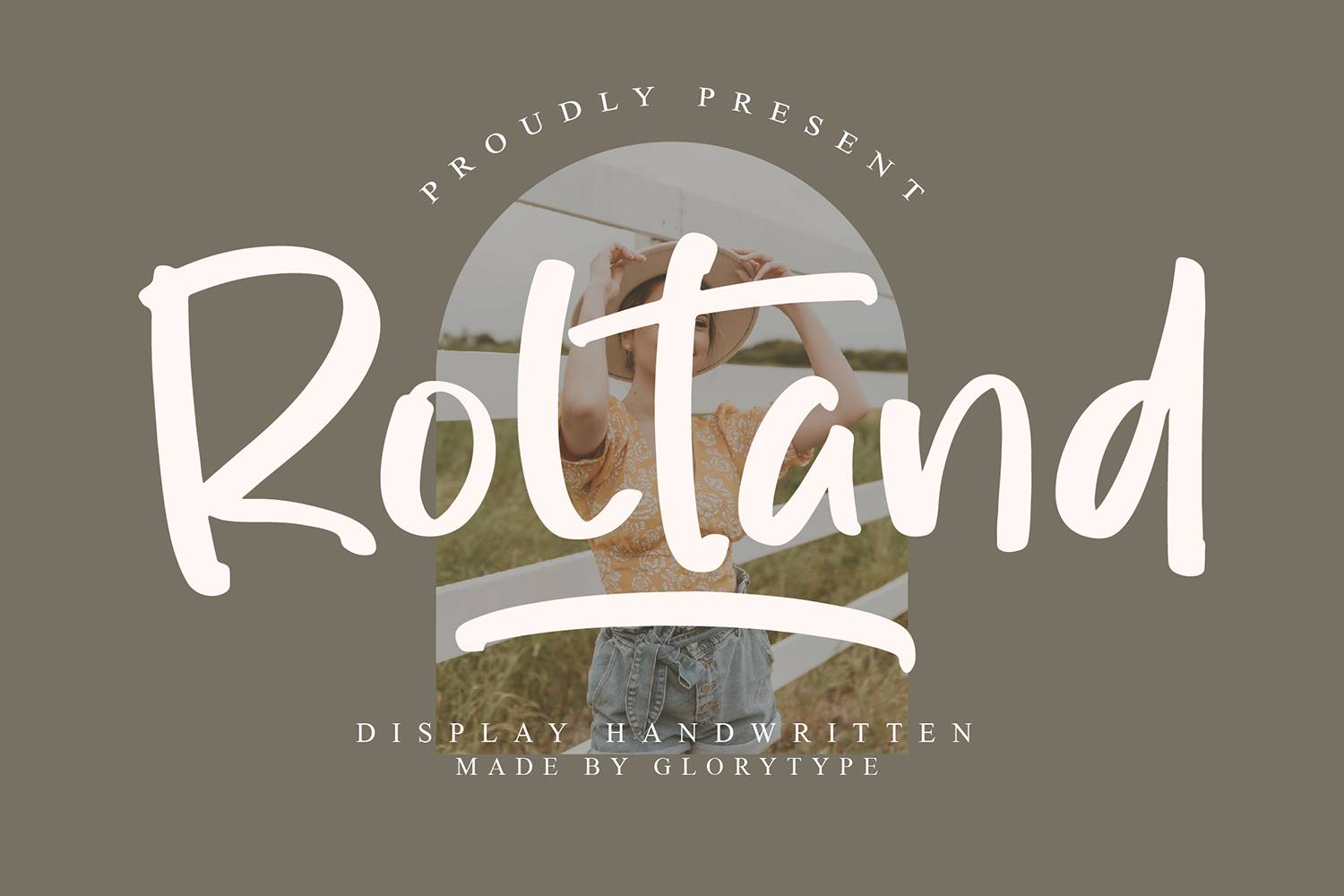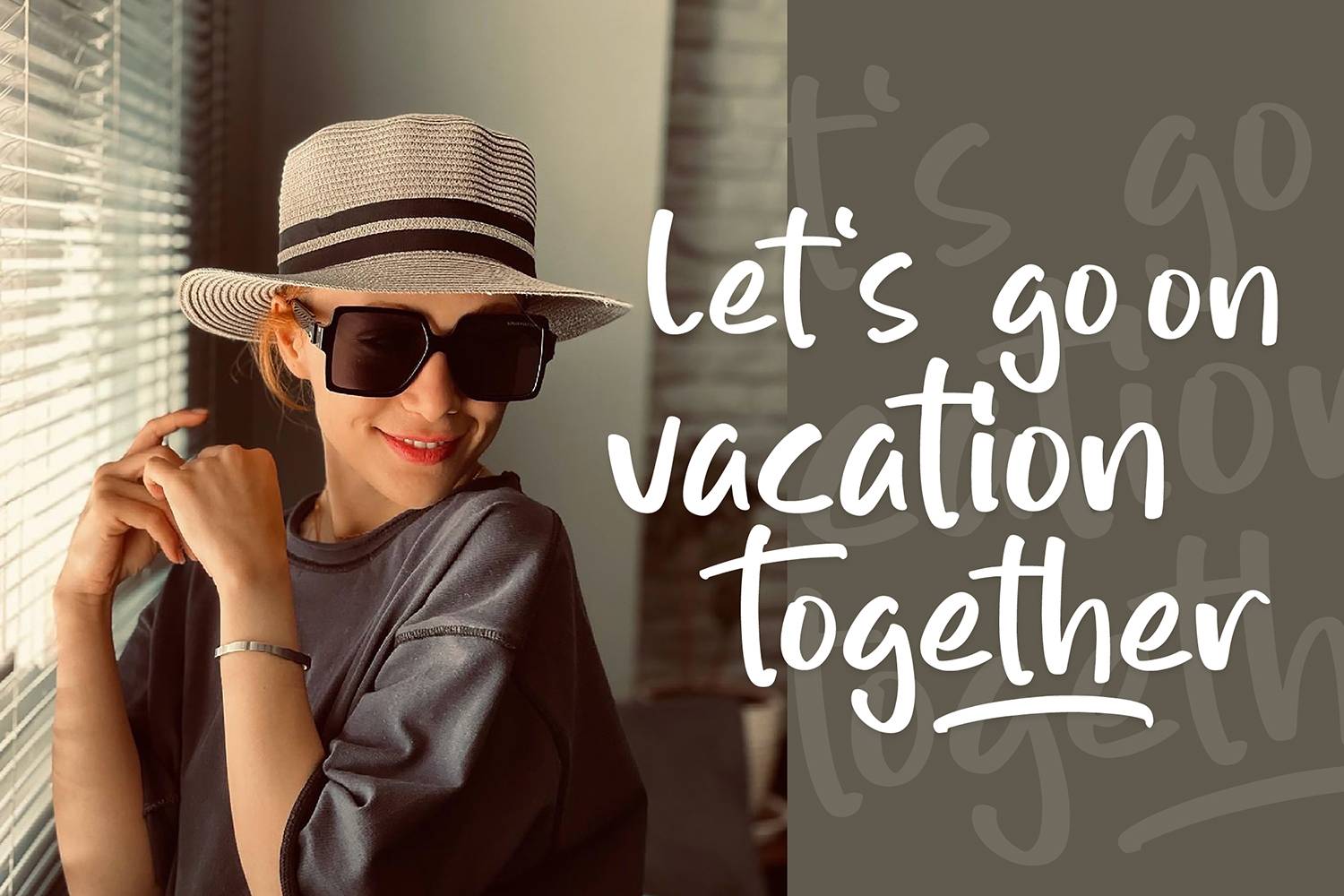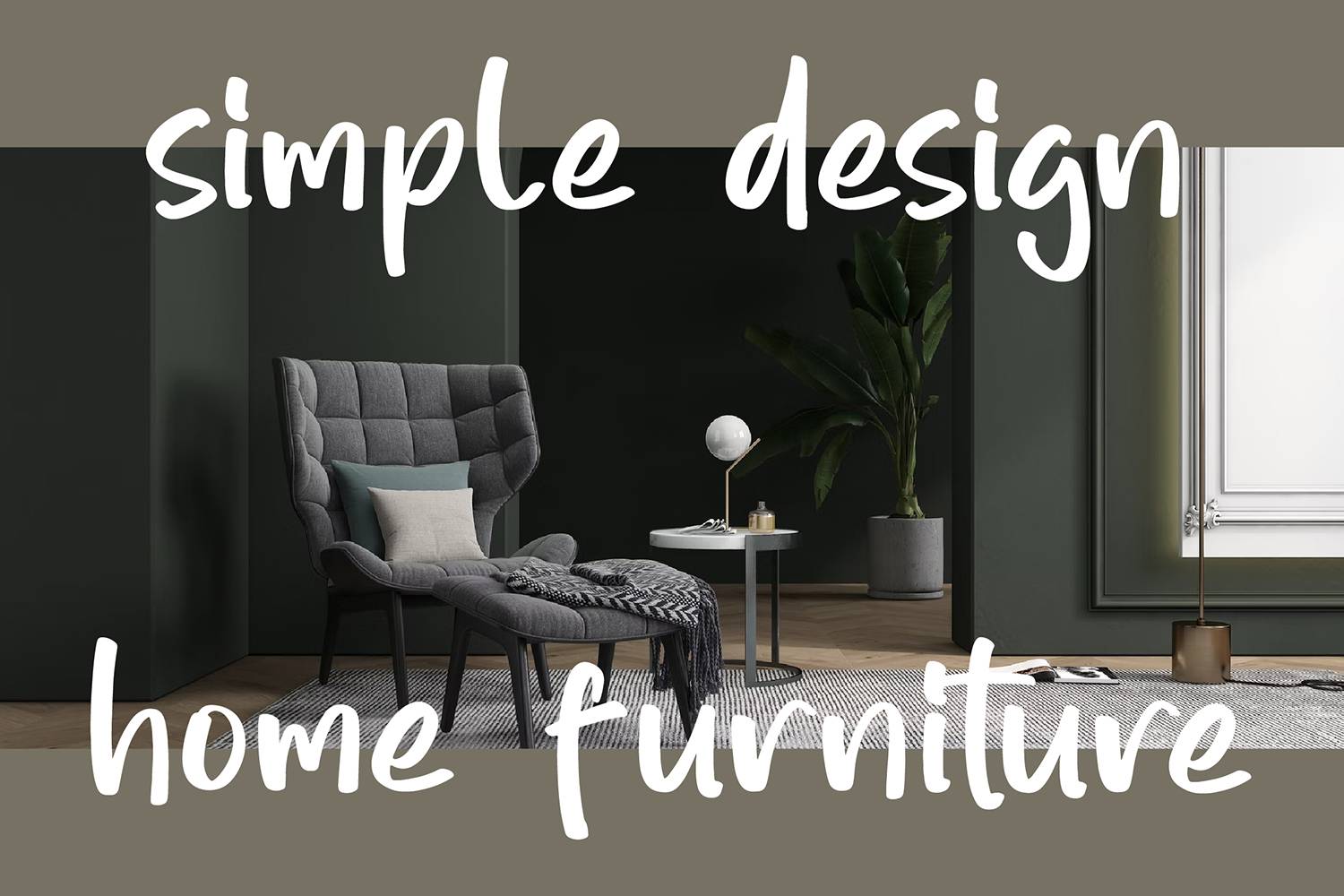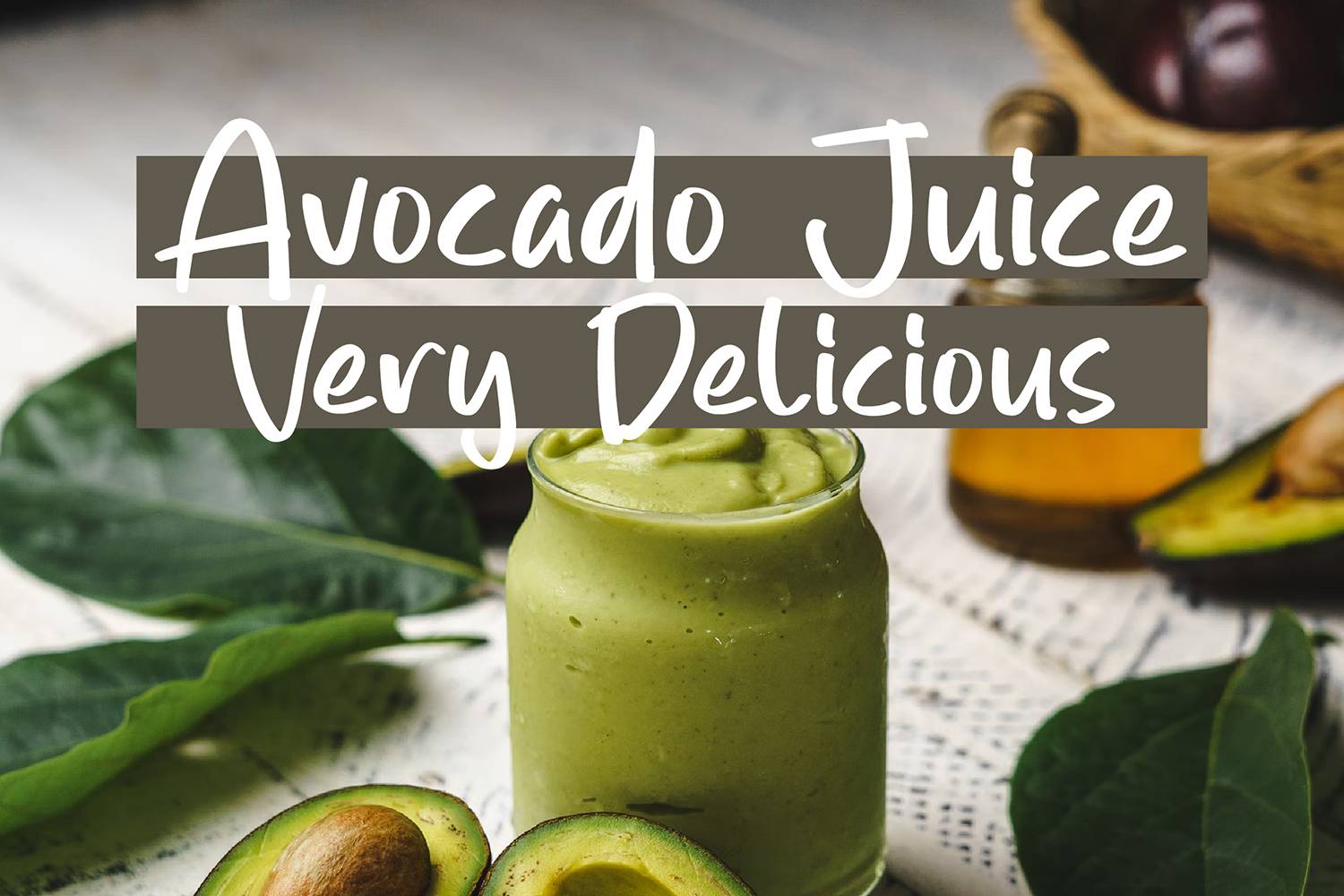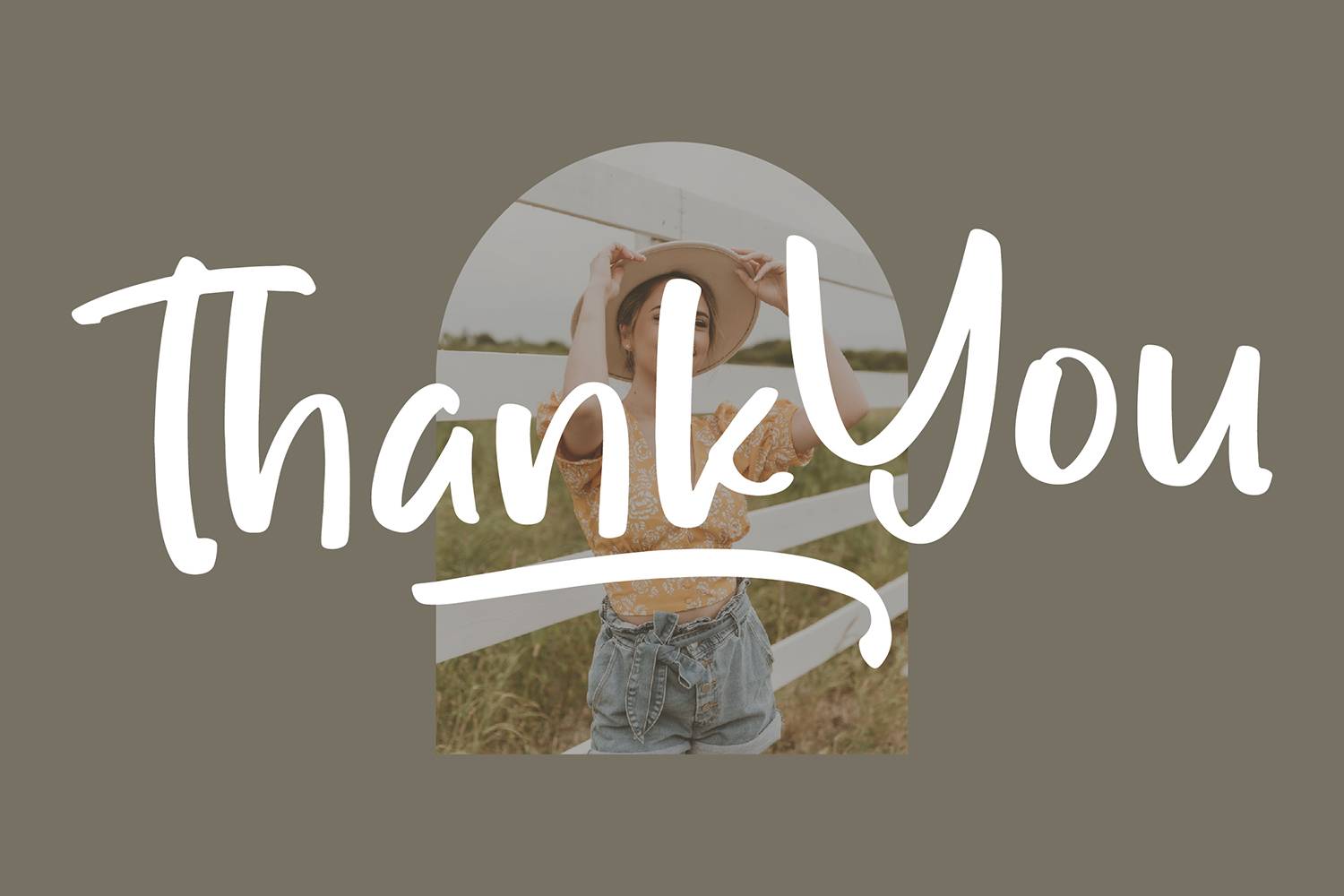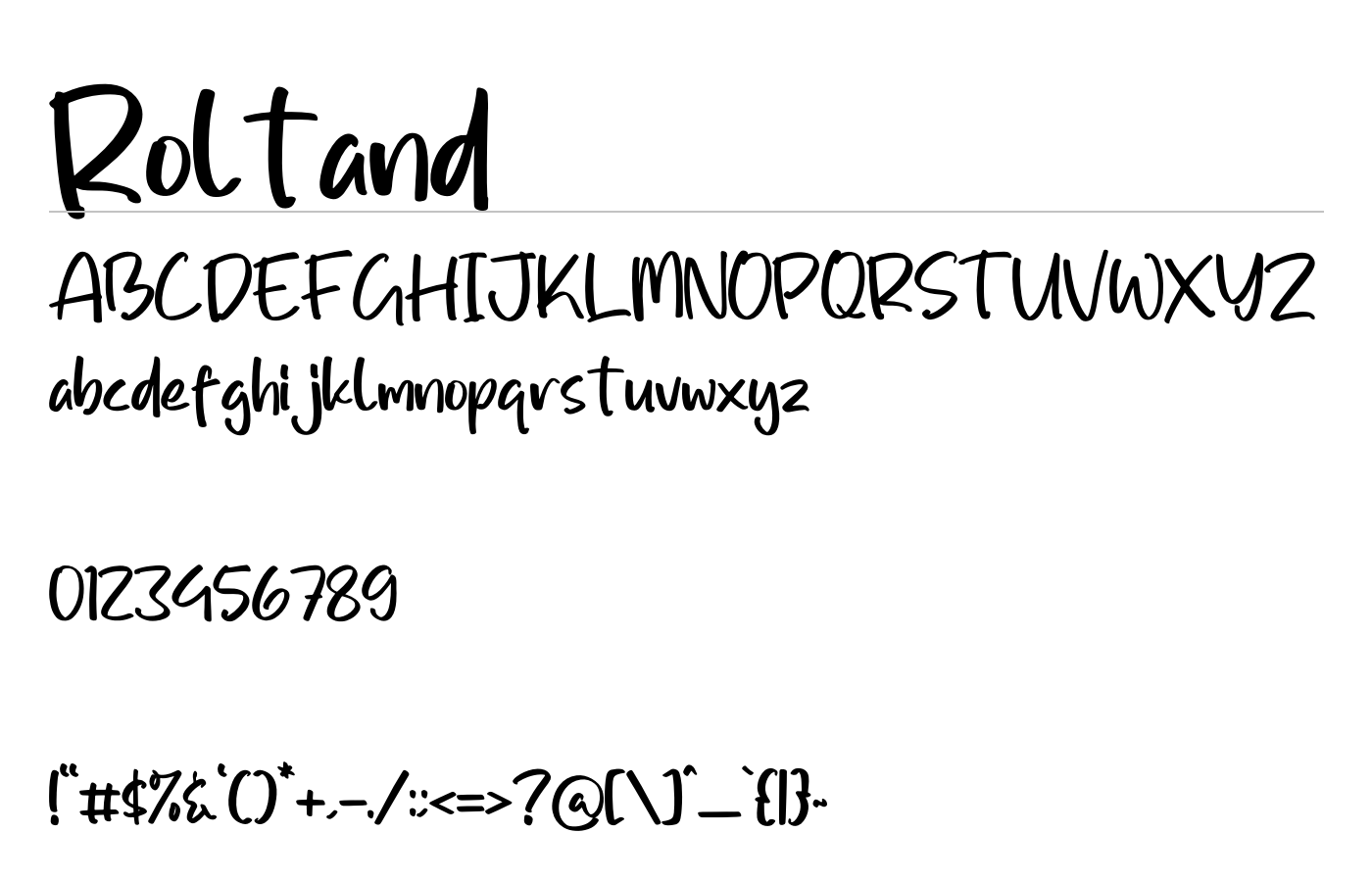
Roltand is a lively, casual handwritten font with a tall x-height and slightly uneven, organic strokes that give it a friendly, approachable feel. Its medium weight and airy spacing make it ideal for informal branding, creative projects, and playful headlines where a personal touch is desired. This font works especially well in designs that aim to convey warmth and authenticity, such as lifestyle blogs, children's products, or casual invitations.
Roltand Font